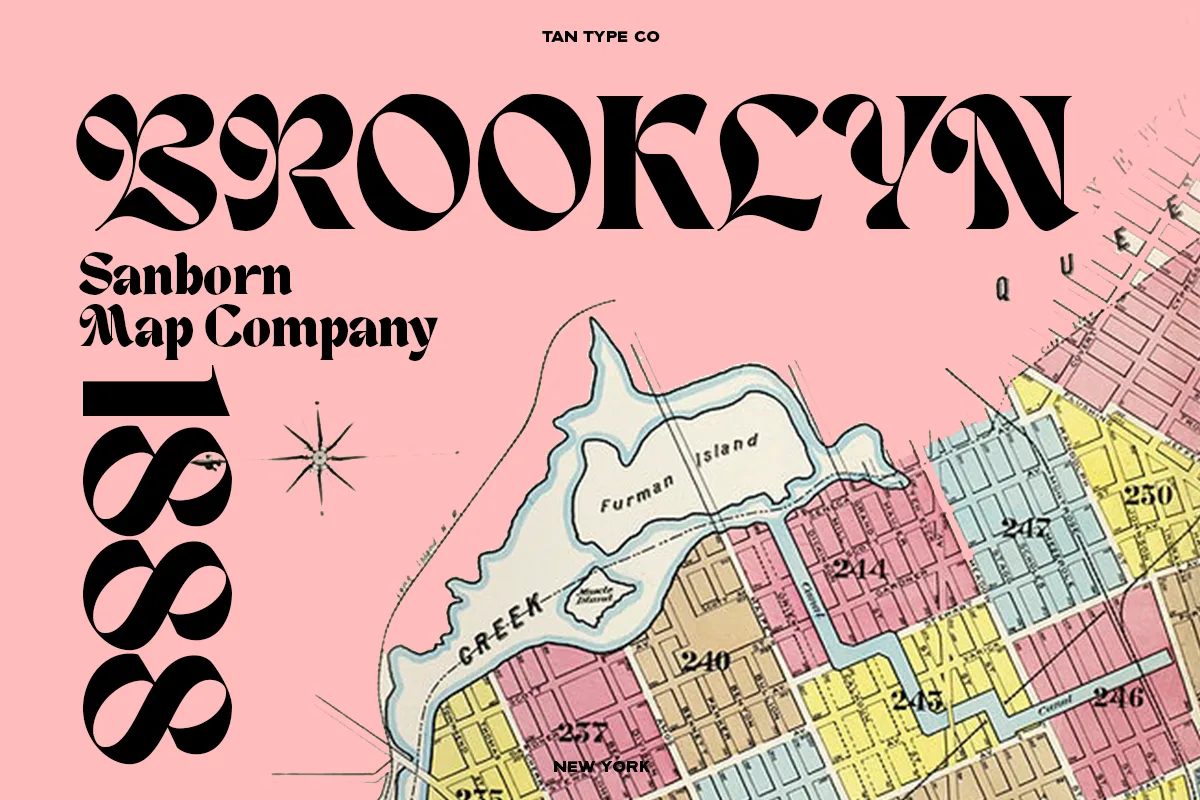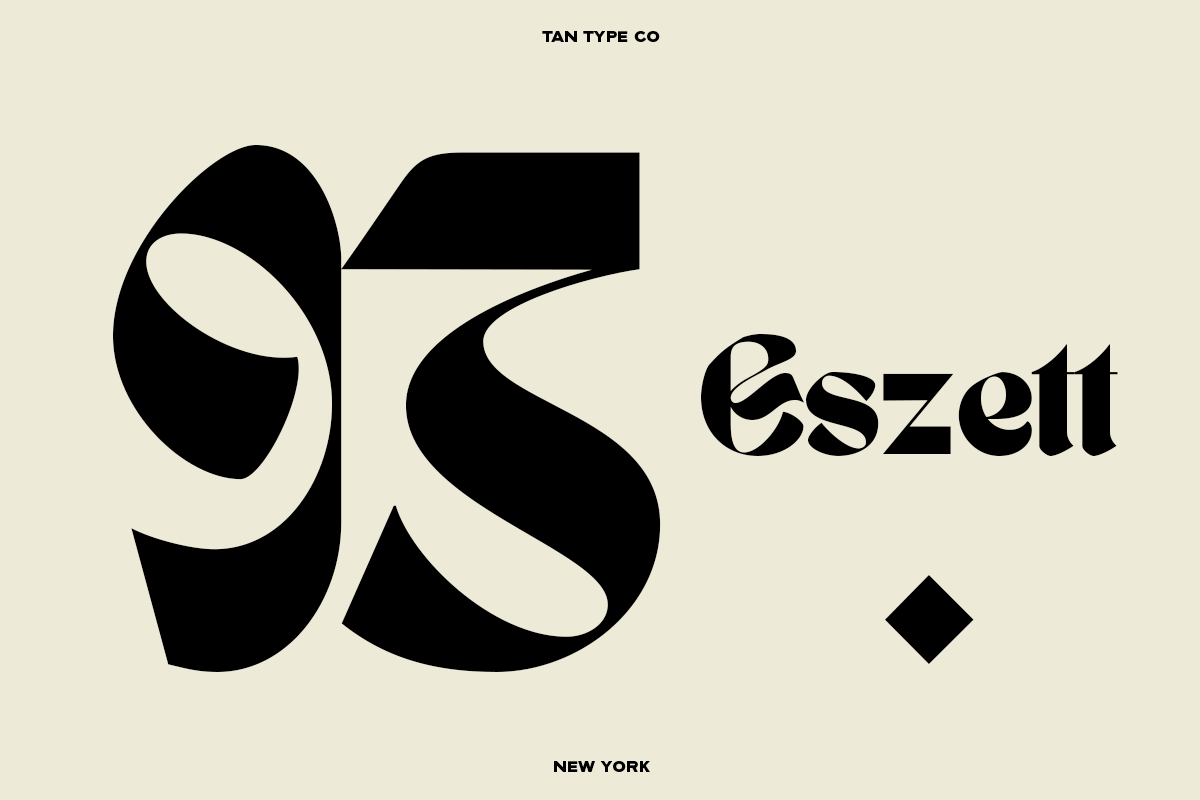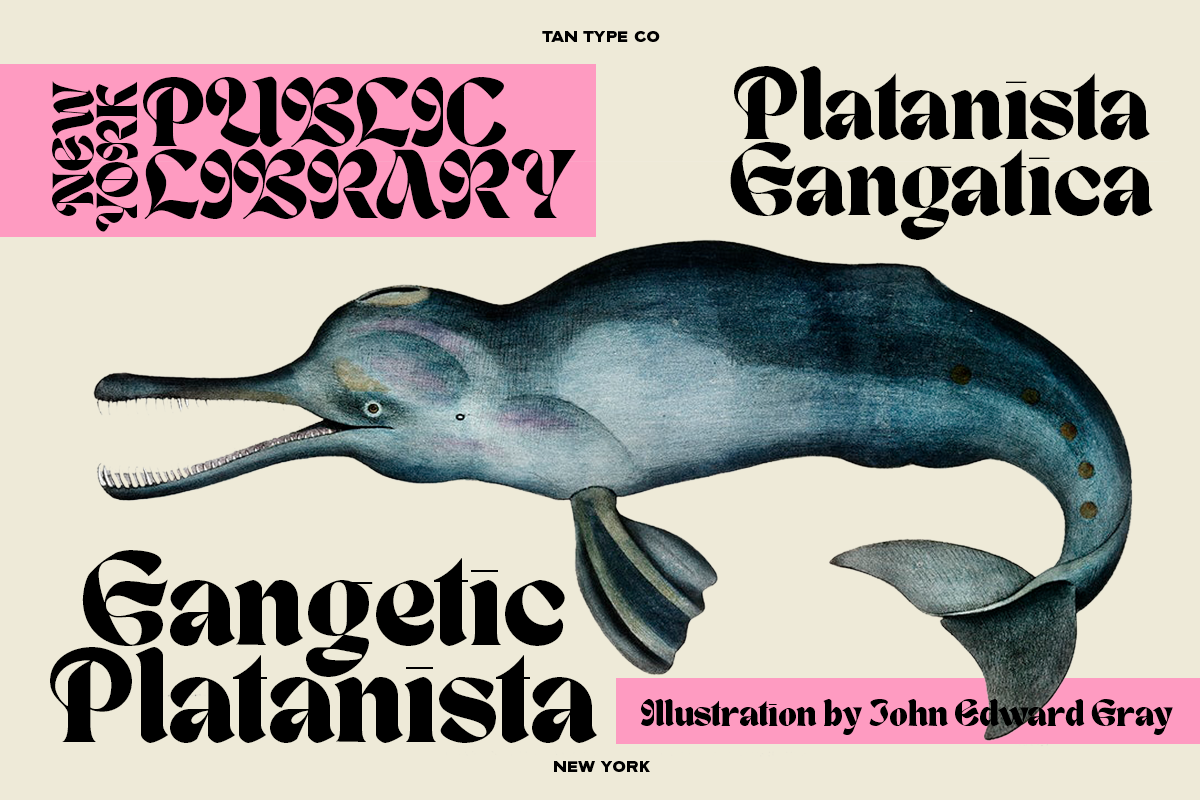
TAN – NEW YORK is a blackletter inspired display typeface. It’s bold and playful with retro twist. Using all capitals will give you a highly stylized text, while combining capitals with lowercase will give you a highly legible text.